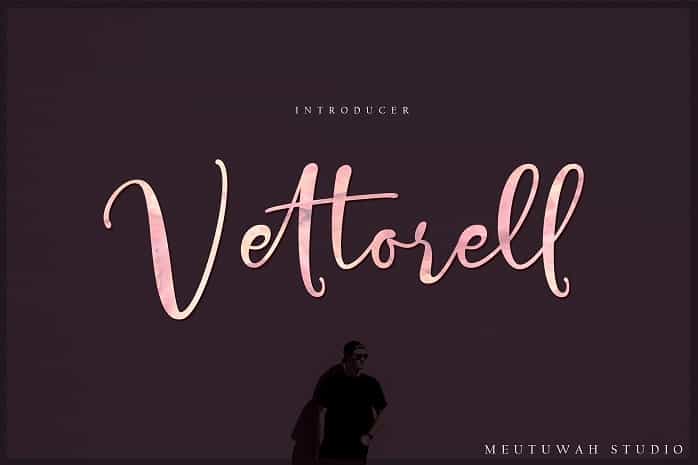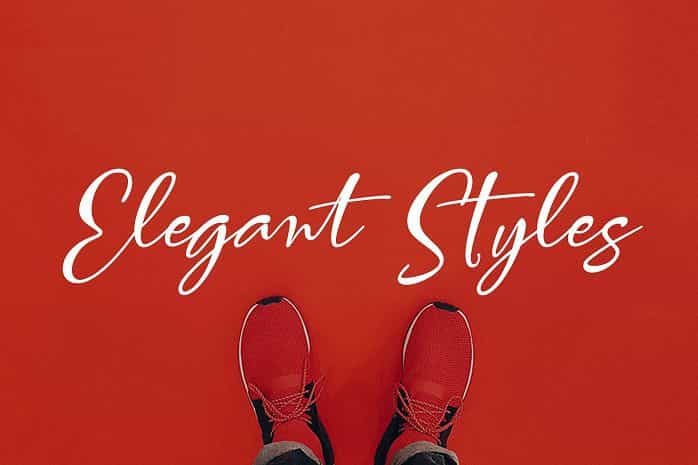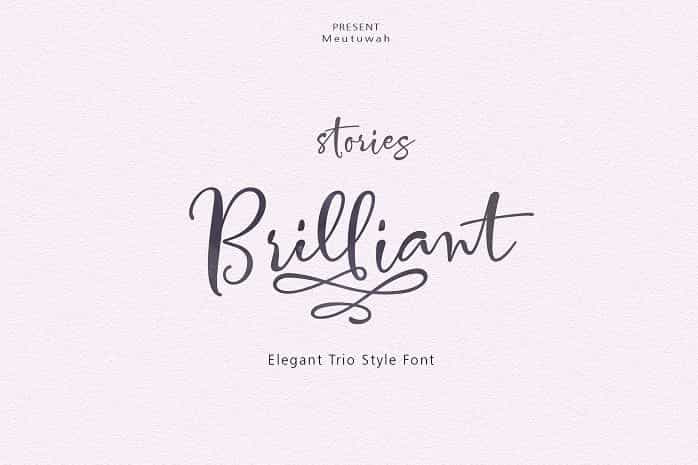
Introducing Vettorell Font. Vettorell Font Trio is also a nice modern Script font that is the result of combining the style of classic calligraphy with an modern one. The typeface is a blend of copperplate to contemporary with the dancing baseline, which gives it a modern and elegant touch. including alternates, and ligatures.